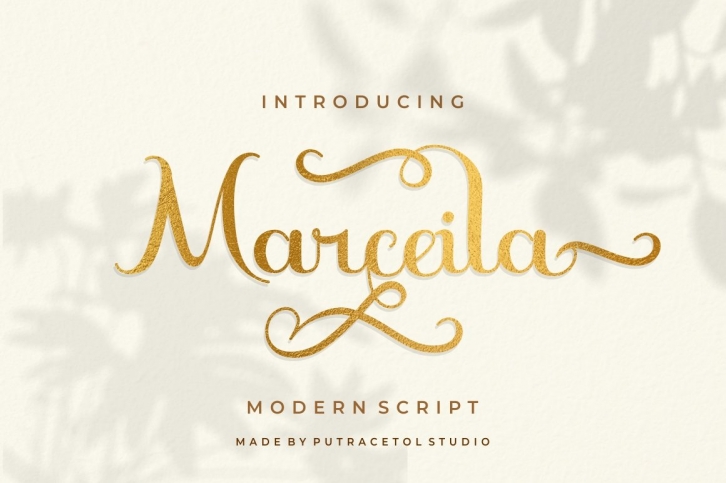
Marceila
Introducing Marceila, a modern script font with a lot of alternates character and unique flourish. This font is perfect for logotype creation, lettering compositions, wedding invitations, fashion projects, book design cover, magazines typography, cards, packagings, posters, branding and more.
Come with Opentype feature with a lot of alternates, its help you to make great lettering. This font is also support multi language.